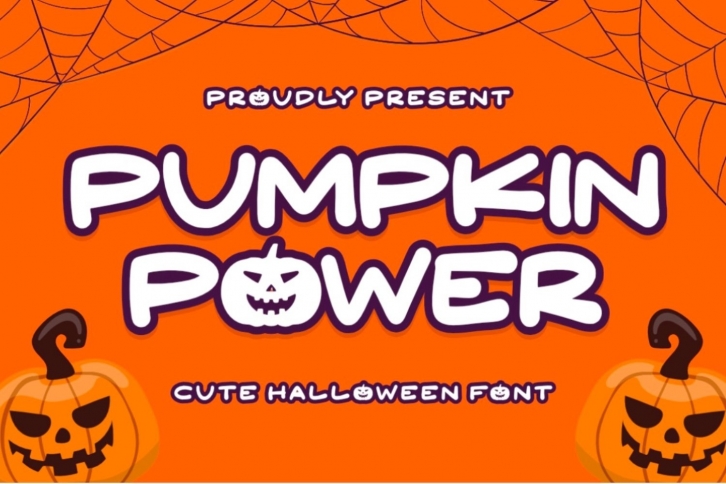
Pumpkin Power is a trendy and unique font with an authentic style. It was designed by Typefar and it's a great choice for creative people who need such a font. It was released on January 16, 2021 and the file size is 10.6 MB. Pumpkin Power will add an organic vibe to any design idea!